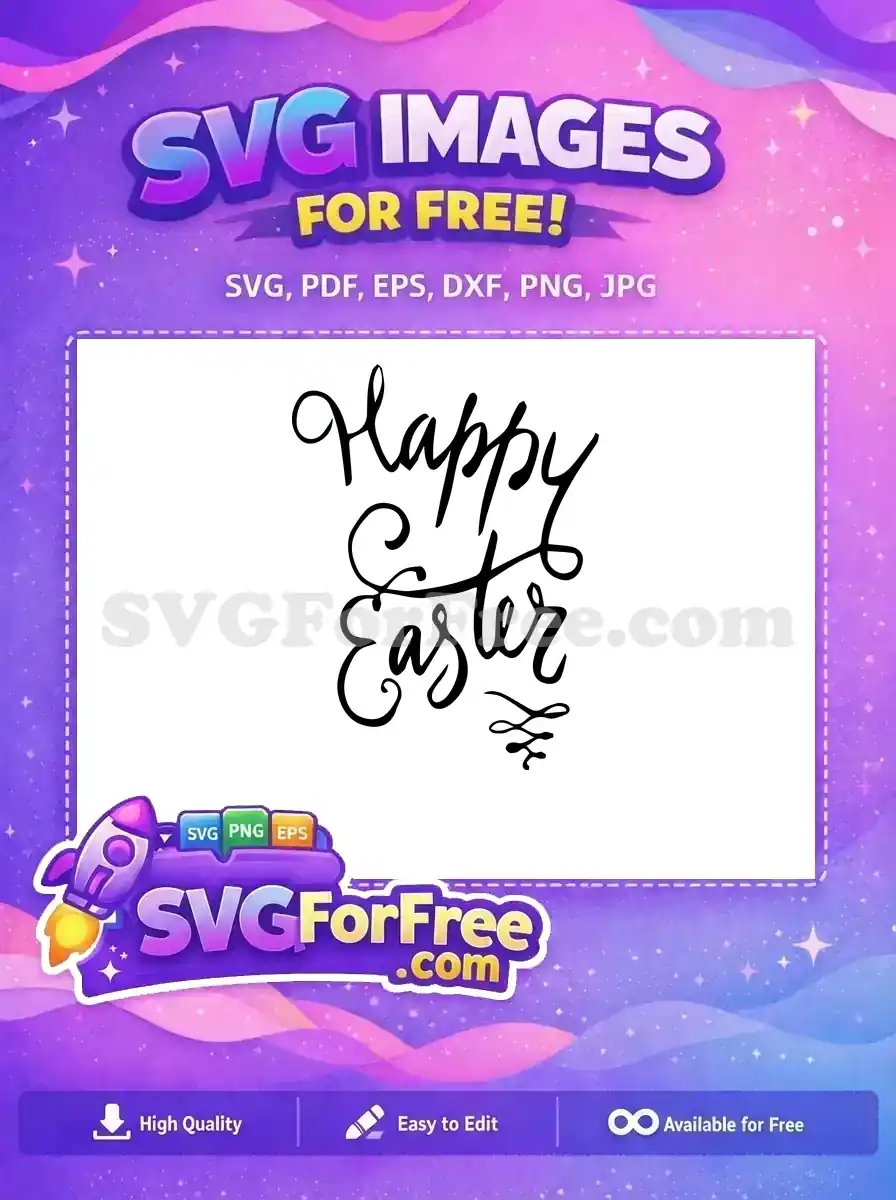
Free Elegant Calligraphic Font Free Festive Decorative Swirls Happy Easter Free SVG – Instant Download
Vertical stacked ‘Happy Easter’ in handwritten style, a free modern vector.
Free Elegant Calligraphic Font Free Festive Decorative Swirls Happy Easter Free SVG